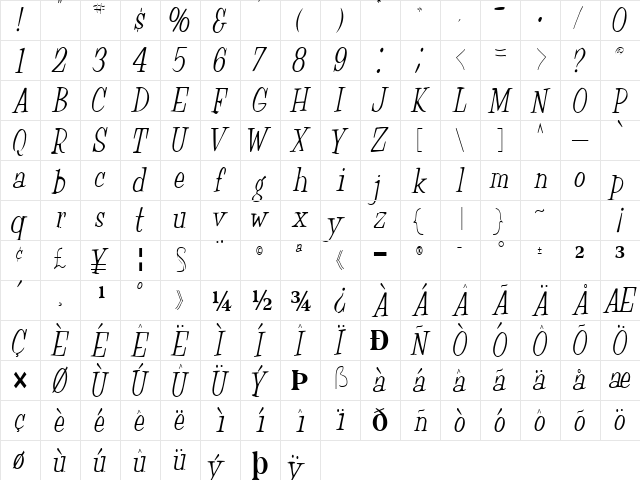
Jo Regular
Design Context for Jo Typeface
Jo offers clean, dependable letterforms without strong stylistic allegiance, making it a practical choice for designers who need flexibility.